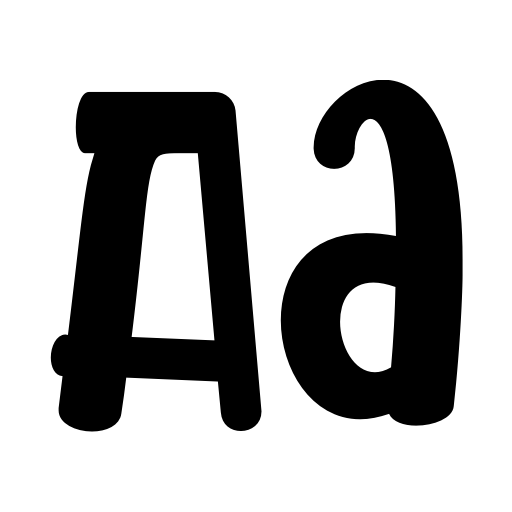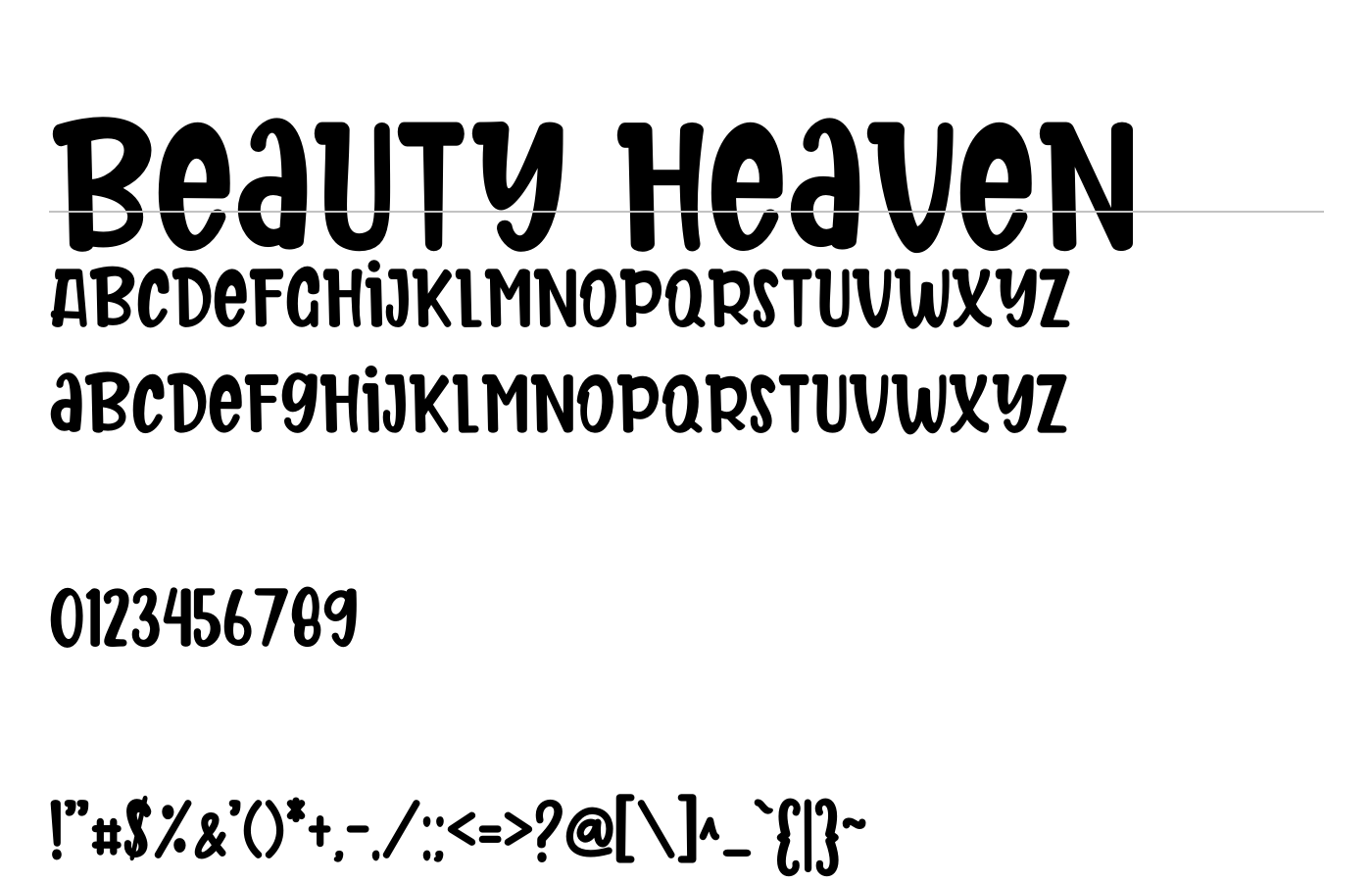
Beauty Heaven is a playful and quirky sans serif font with a bold, rounded style and a slightly condensed appearance. Its irregular shapes and high x-height create a friendly, approachable vibe, making it ideal for fun, casual branding or creative projects that want a lively and informal tone. This font works well in headlines, posters, and packaging where a distinctive and cheerful personality is desired.
Beauty Heaven Font
About Beauty Heaven Font
| Font family | Beauty Heaven Font |
| Designer | Arief Tri Sulistiyono |